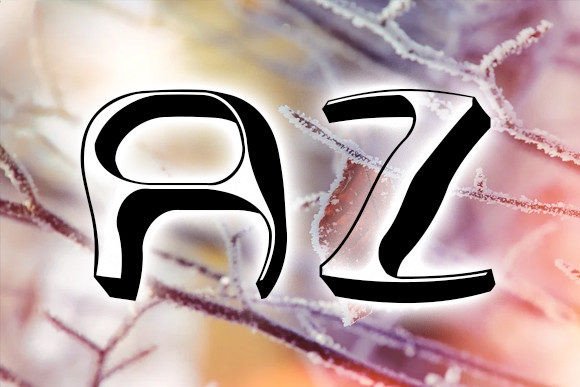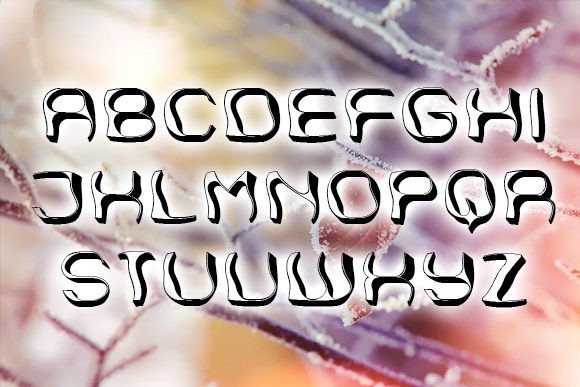
Glistening Font: Elevate Your Designs with this Stunning 3D Display Font
Are you tired of using the same old fonts in your designs? Look no further! Introducing Glistening, an abstract 3D font that is sure to take your creations to the next level. With its unique and eye-catching style, Glistening is perfect for designers and crafters looking to add a touch of sophistication and glamour to their work.
What is Glistening Font?
Glistening is a display font that features a stunning 3D effect, giving it a modern and edgy look. The font is abstract, meaning it doesn’t follow traditional font styles, making it perfect for designs that require a bit of flair. The 3D effect gives the font a sense of depth and dimensionality, making it stand out from other fonts.
How to Use Glistening Font
Glistening font is incredibly versatile and can be used on a variety of design projects. Here are some ideas to get you started:
- Posters: Use Glistening font to create eye-catching posters for events, promotions, or advertisements. The 3D effect will make your poster stand out and grab attention.
- Flyers: Add a touch of glamour to your flyers with Glistening font. Perfect for promoting products, services, or events.
- T-shirts: Take your t-shirt designs to the next level with Glistening font. The font’s abstract style and 3D effect will make your design stand out.
- Logos: Use Glistening font to create a unique and memorable logo for your brand. The font’s modern style will give your brand a fresh and contemporary look.
Benefits of Using Glistening Font
So why choose Glistening font for your designs? Here are just a few benefits:
- Unique Style: Glistening font has a one-of-a-kind style that will set your designs apart from others.
- Versatility: The font can be used on a variety of design projects, from posters and flyers to t-shirts and logos.
- High-Quality: The font is high-quality and scalable, ensuring it will look great on any device or medium.
Tips for Getting the Most Out of Glistening Font
Here are some tips for getting the most out of Glistening font:
- Experiment with Colors: Try out different colors and gradients to really make the 3D effect pop.
- Play with Sizes: Experiment with different font sizes to create visual interest and hierarchy in your designs.
- Combine with Other Fonts: Pair Glistening font with other fonts to create a unique and interesting contrast.